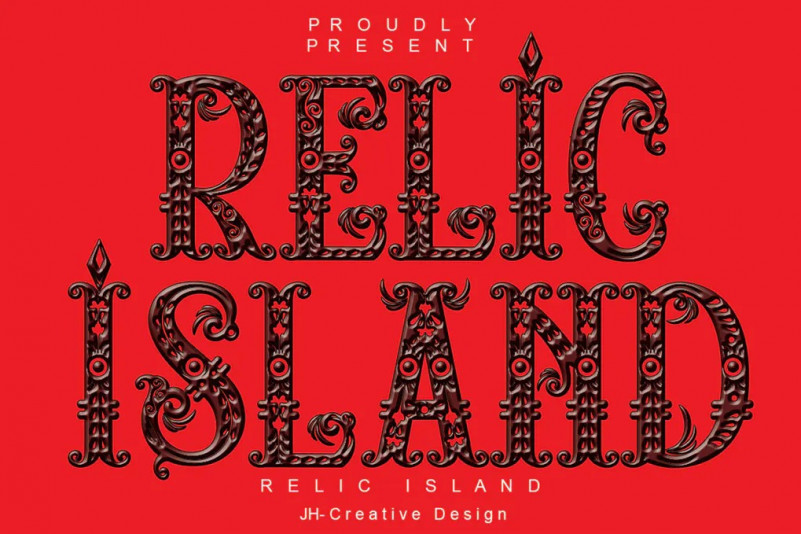
Relick Island Font
with an ancient theme you present a design that looks more religious and old-fashioned in this font you will find from each character has its own specialties Relick Island ttf// Relick Ornament ttf// Relick Ornament otf